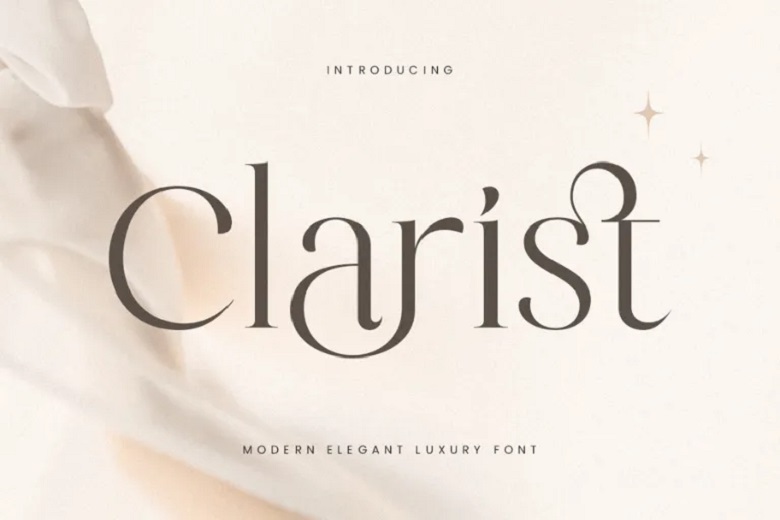
Clarist Font
Clarist Font is elegant and luxurious modern font which makes every design project look great and elevated to the level of a movie set. Its styles are elegant for brands logos and high-end editorial designs and add a fine uplift to your works. The formation of Clarist was based on the interconnection of the oriental aesthetics of the present day and traditional refinement.
Every curve and line is perfect and the font gives that luxury feeling it is perfect for designers who want to create a strong first impression. In headline use, and titles, and folding text that is often called body copy, Clarist peals with exquisite detailing.
In addition of being good looking, ligatures, punctuation, numbers, special characters and multilingual are functional in Clarist. This particular font promises versative therefore can be included as a tool of preference in any designer’s arsenal for both print and web.
Clarist Serif Font